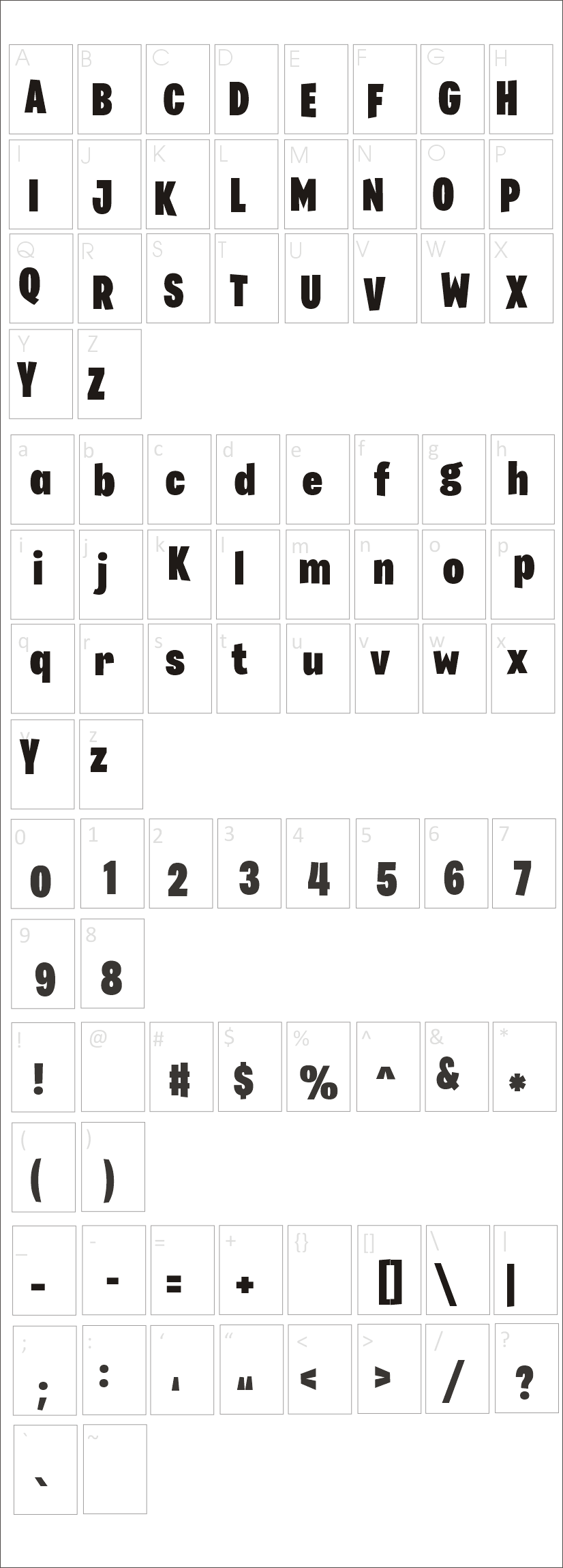
| Font Name: | Fortnite Font |
| Font Designer: | Tal Leming |
Fortnite Font is inspired by the logo of the wildly popular video game Fortnite. This typeface captures the energetic and bold aesthetic of the game, making it a great choice for projects that need a dynamic, playful, or adventurous touch. Whether you’re creating gaming-related content, promotional materials, or custom designs, this font will bring a modern, edgy vibe to your work.
Key Features of Fortnite Font:
- Bold and Modern Design: The Fortnite Font is characterized by its sharp, geometric shapes and bold letters, closely resembling the iconic Fortnite logo. This makes it a perfect fit for gaming-themed projects.
- Youthful and Energetic: Its design exudes a sense of adventure, excitement, and fun, making it appealing to younger audiences and gamers.
- Versatility: While inspired by the Fortnite logo, this font is versatile enough to be used in various contexts, from social media graphics to merchandise.
- Legibility: Despite its bold and energetic look the Fortnite Font remains highly readable making it suitable for both large headings and shorter text.
Uses for Fortnite Font:
- Gaming Projects: This font is ideal for creating banners, logos, and promotional materials related to video games, especially in the eSports or streaming community.
- Social Media Graphics: Use the Fortnite Font to create attention-grabbing posts, headers, or thumbnails for YouTube, Twitch, or Instagram.
- Merchandise and Apparel: Perfect for custom t-shirts, hoodies, or accessories aimed at Fortnite fans or the gaming community in general.
- Event Promotions: Whether it’s a gaming tournament, eSports event, or a Fortnite-themed birthday party, this font will help you create eye-catching invitations and promotional materials.
- Web Design: Incorporate the Fortnite Font into gaming websites, blogs, or fan pages to give them an authentic, adventurous feel.